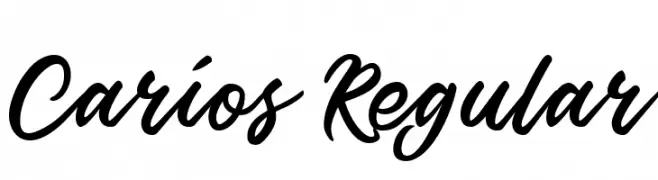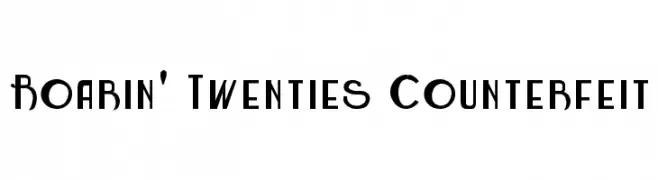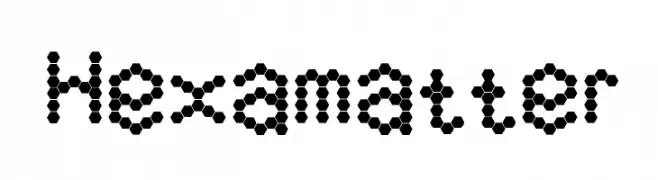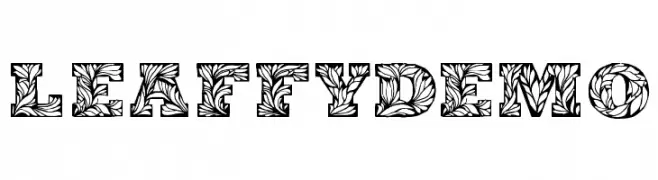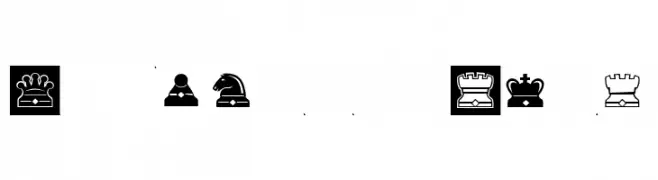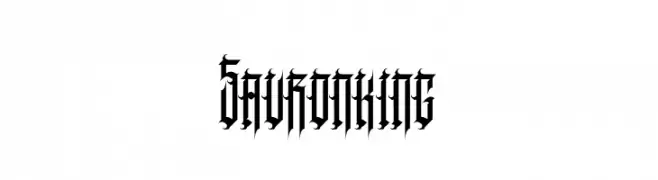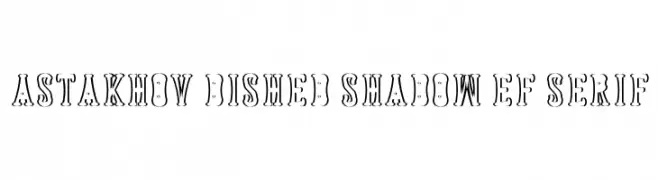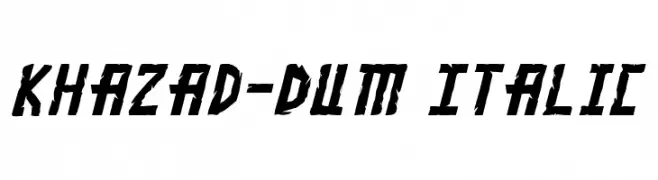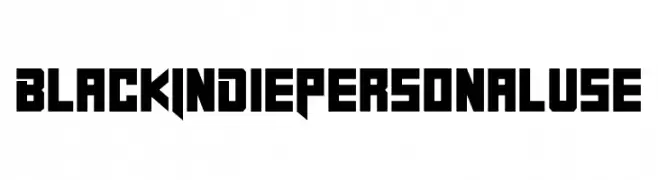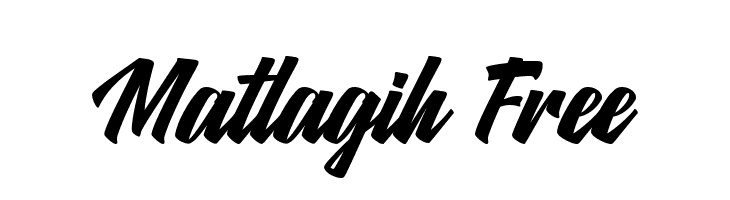
A dynamic and fluid script font with elegant, flowing strokes.
A bold, decorative font with a vintage 1920s flair.
A geometric font made from hexagonal shapes, offering a modern and digital aesthetic.
A decorative font with intricate leaf patterns in each character.
A classic serif font with semi-bold weight, combining elegance and modernity.
Chess-themed icon font with bold, geometric chess piece illustrations.
A bold blackletter font with sharp, angular lines and intricate detailing.
A decorative serif font with a shadow effect and vintage flair.
A bold, angular, and italicized font with a rugged, rune-like appearance.
A bold, geometric font with sharp angles and a modern, industrial feel.